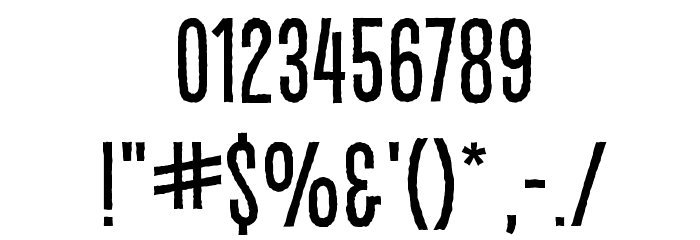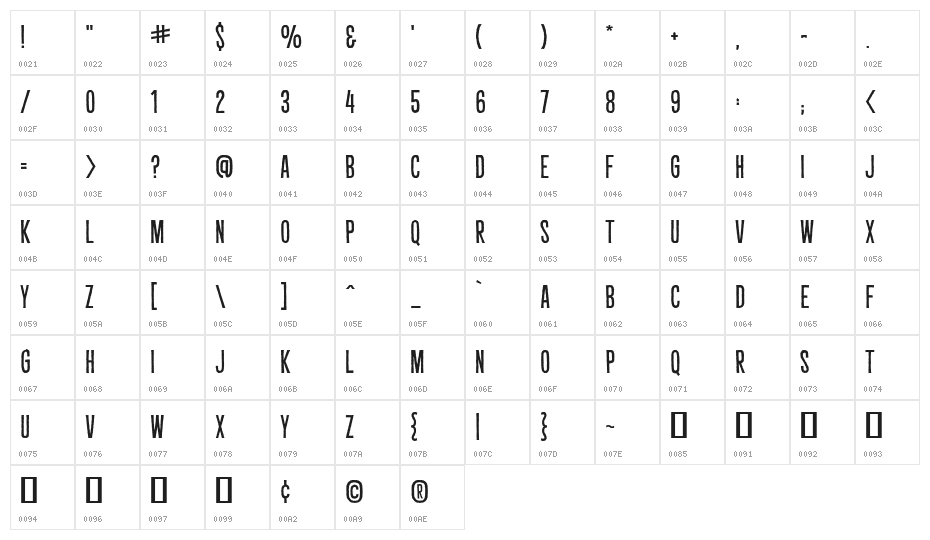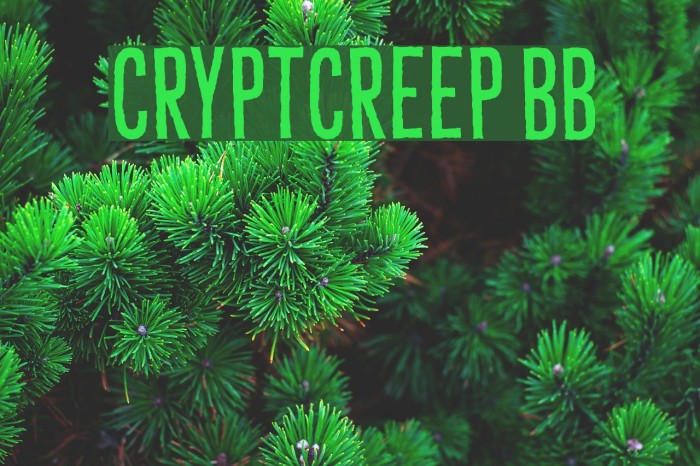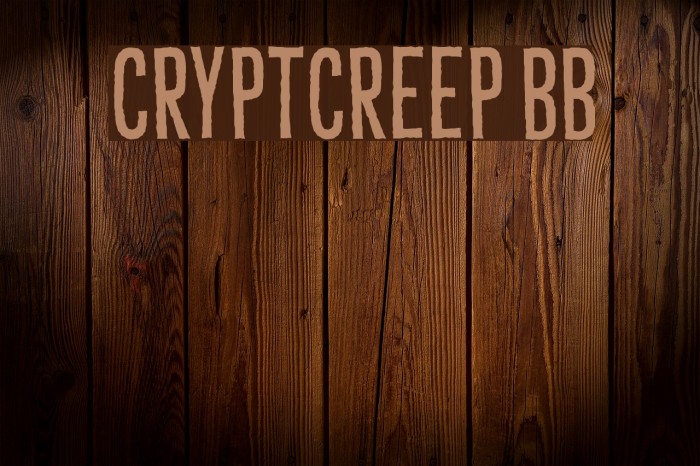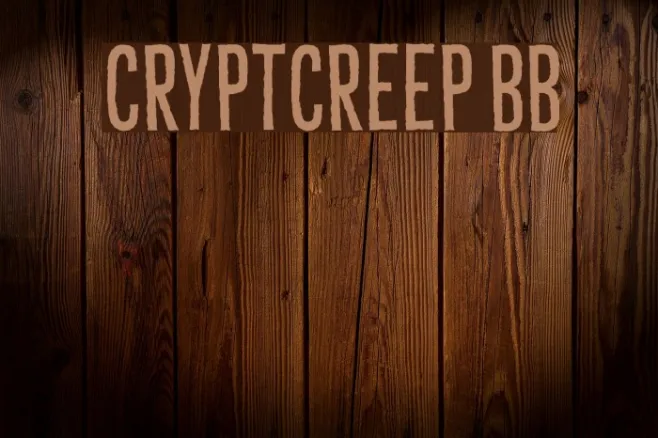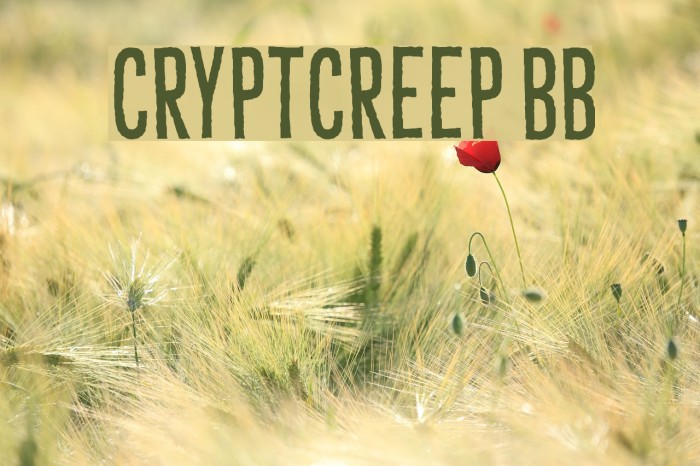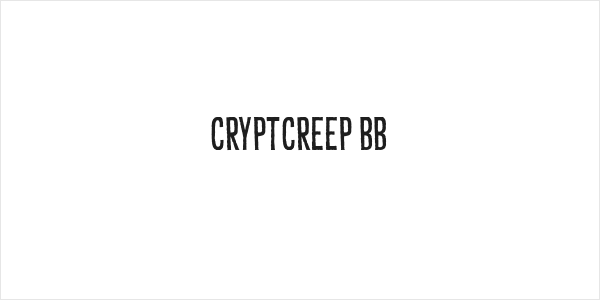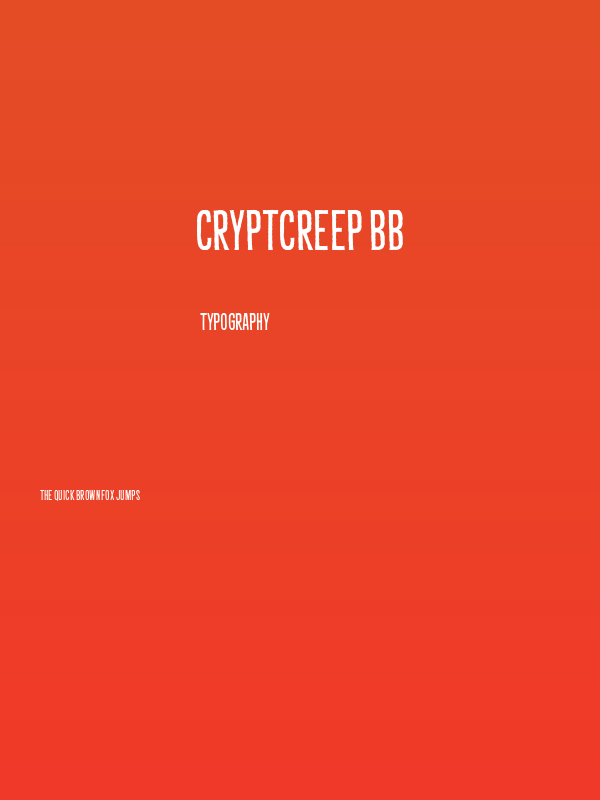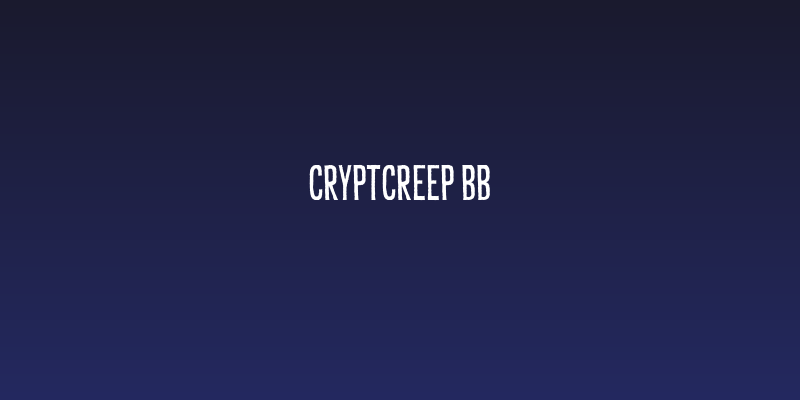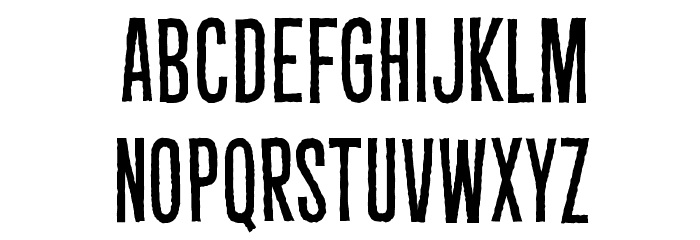
CryptCreep BB Font
CryptCreep BB Description
This font features a bold and slightly distressed appearance, giving it a rugged and vintage feel. The uppercase and lowercase letters are tall and narrow, with a consistent stroke width that adds to its boldness. The numbers and special characters maintain the same distressed style, making them cohesive with the alphabet. The font's texture suggests a hand-printed or stamped look, which adds character and uniqueness to any design. Its legibility is high due to the clear distinction between characters, despite the textured effect.
| Proposed Projects | Ideal for posters, album covers, branding projects, and any design requiring a vintage or rugged aesthetic. |